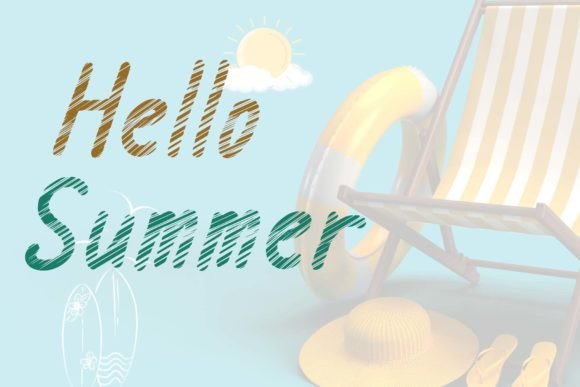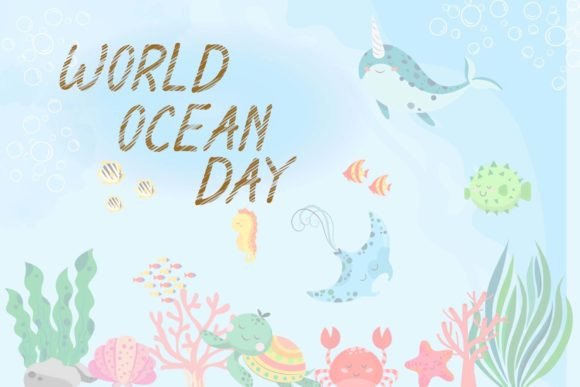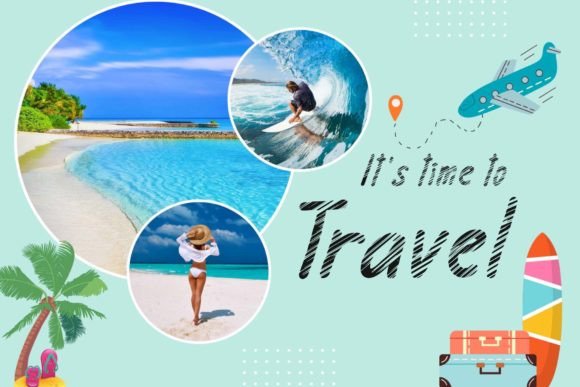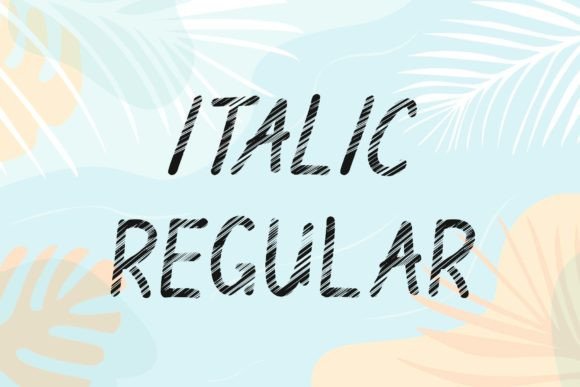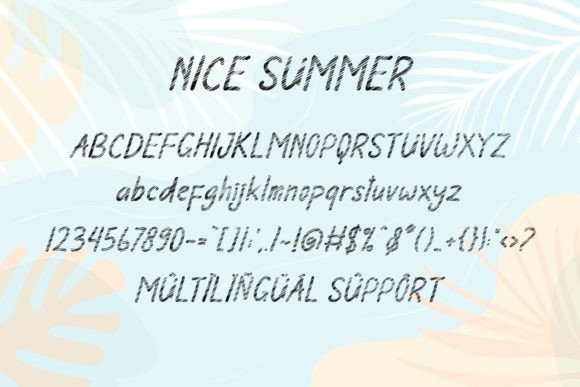
Introduction to Nice Summer Font
“Nice Summer” is a display font with shading on each letter, making it unique.
Equipped with regular and italic letters, uppercase and lowercase numerals, punctuation, and multilingual support This font can be used for summer moments, holidays, vacations, traveling, graduation, Father’s Day, Christmas, and others.
Key Features of Nice Summer Font